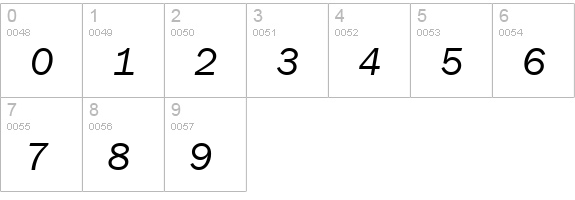
Franklin Gothic Book Italic is a comfortable, highly readable, italic variant in the Franklin typeface family \xE2\x80\x94 well suited to long-form body text, articles, and editorial content.
Franklin Gothic Book Italic font boasts a sleek and modern design that exudes sophistication and elegance. Its slanted and stylish italics add a touch of flair to any text, making it perfect for creative projects, branding, and editorial design. The clean and legible letterforms of Franklin Gothic Book Italic ensure readability across various applications, from print to digital media. What's even better is that Franklin Gothic Book Italic font is available for free download at FontsMarket.com. This means you can elevate your designs without breaking the bank, making it an excellent choice for designers and creatives looking for a high-quality font at no cost. Don't miss out on the opportunity to enhance your projects with the timeless charm of Franklin Gothic Book Italic font, available for free at FontsMarket.com.